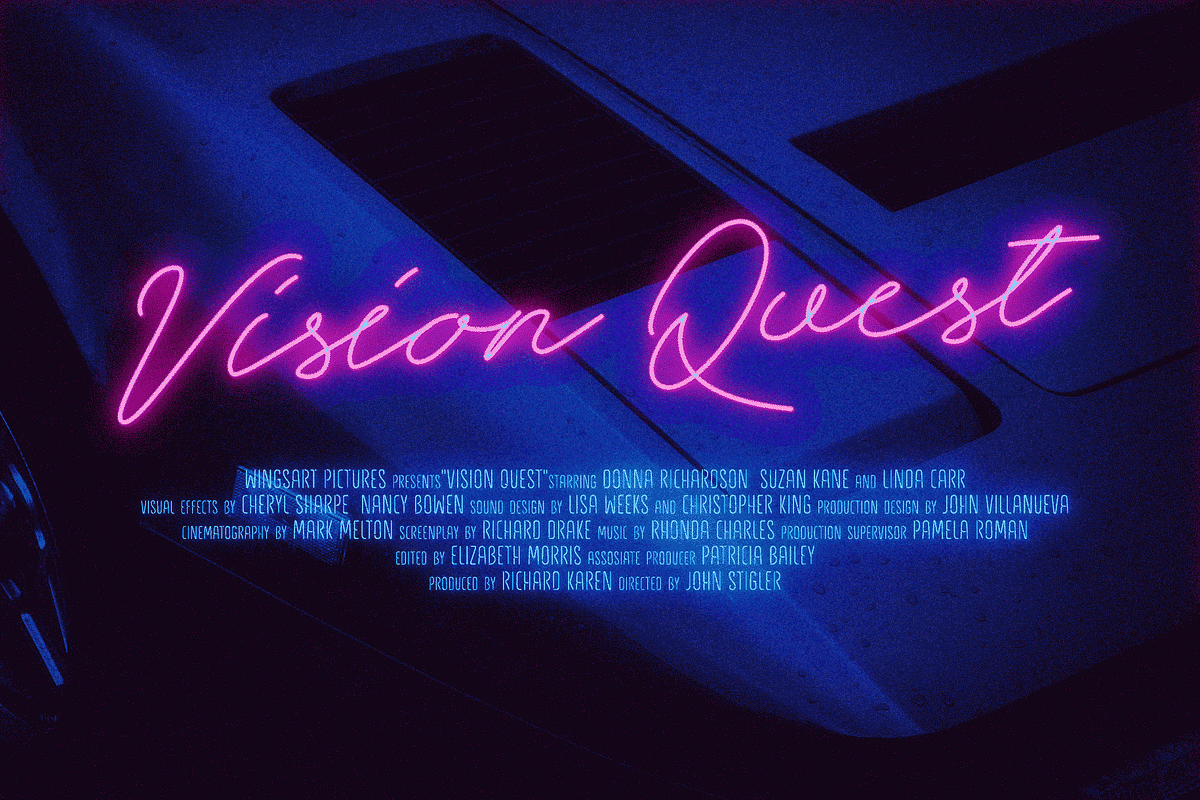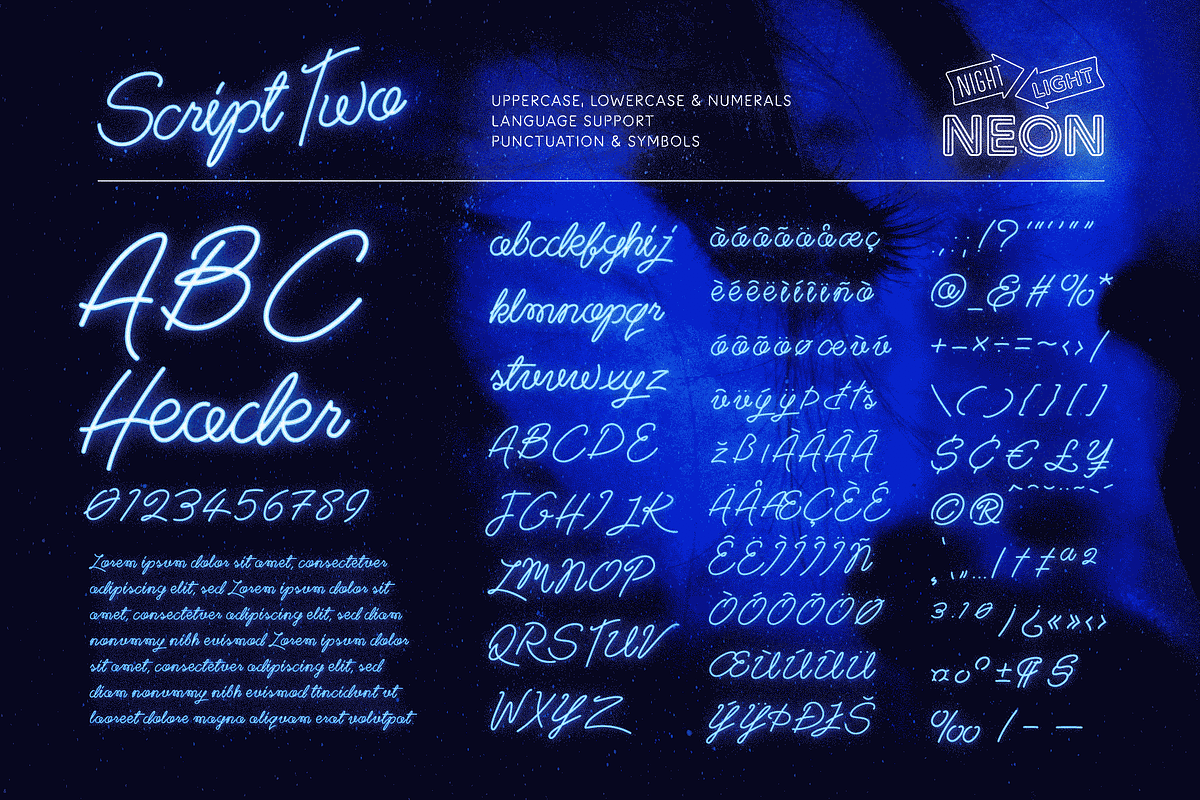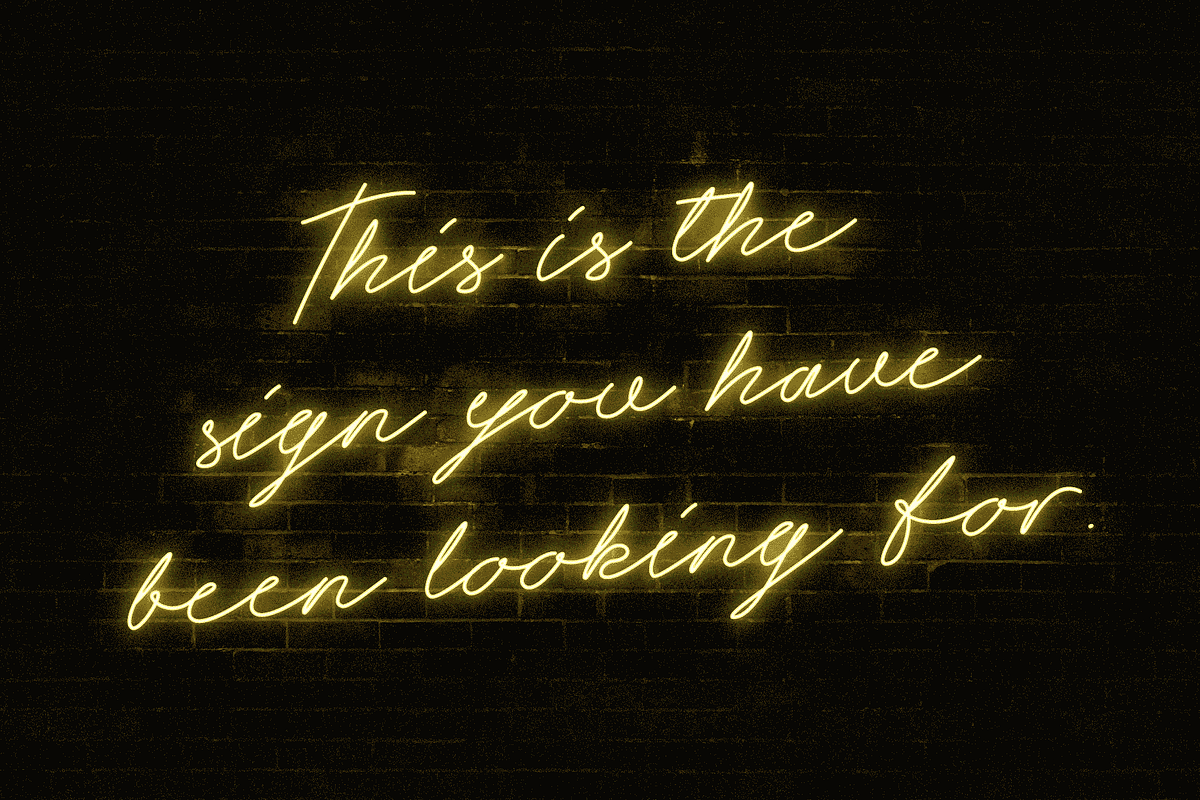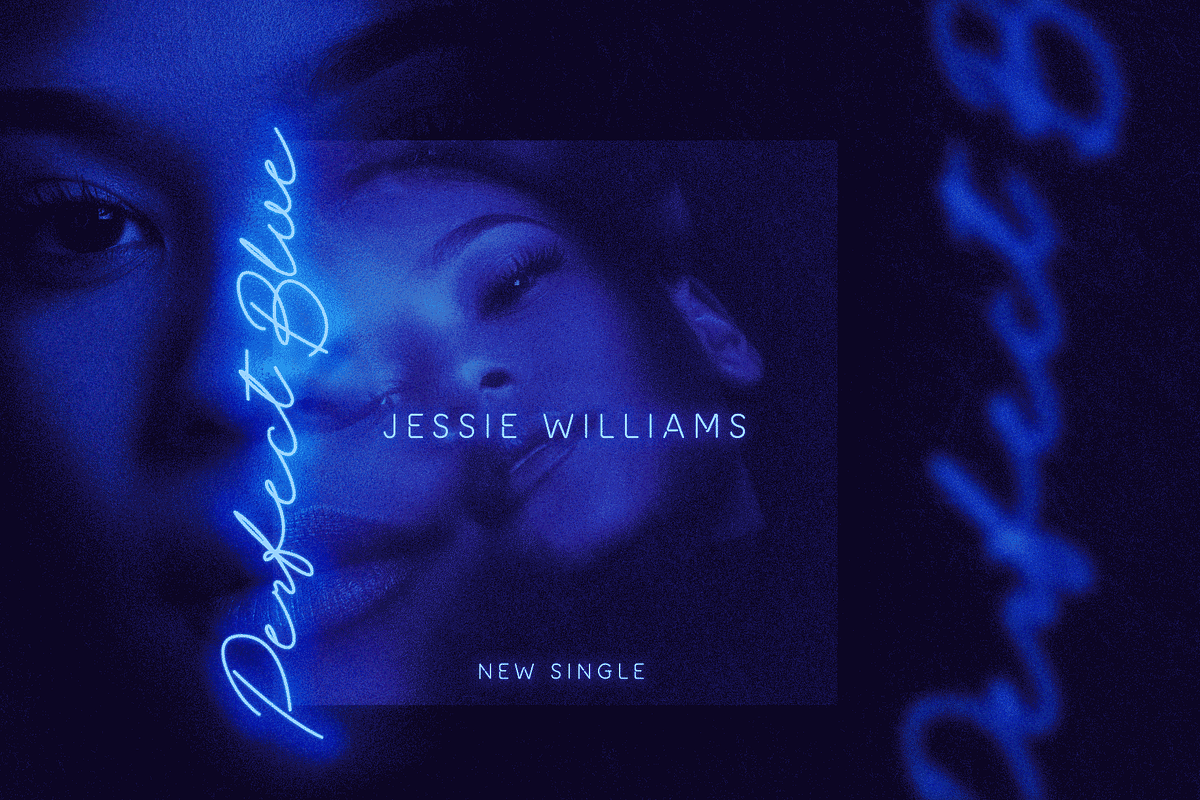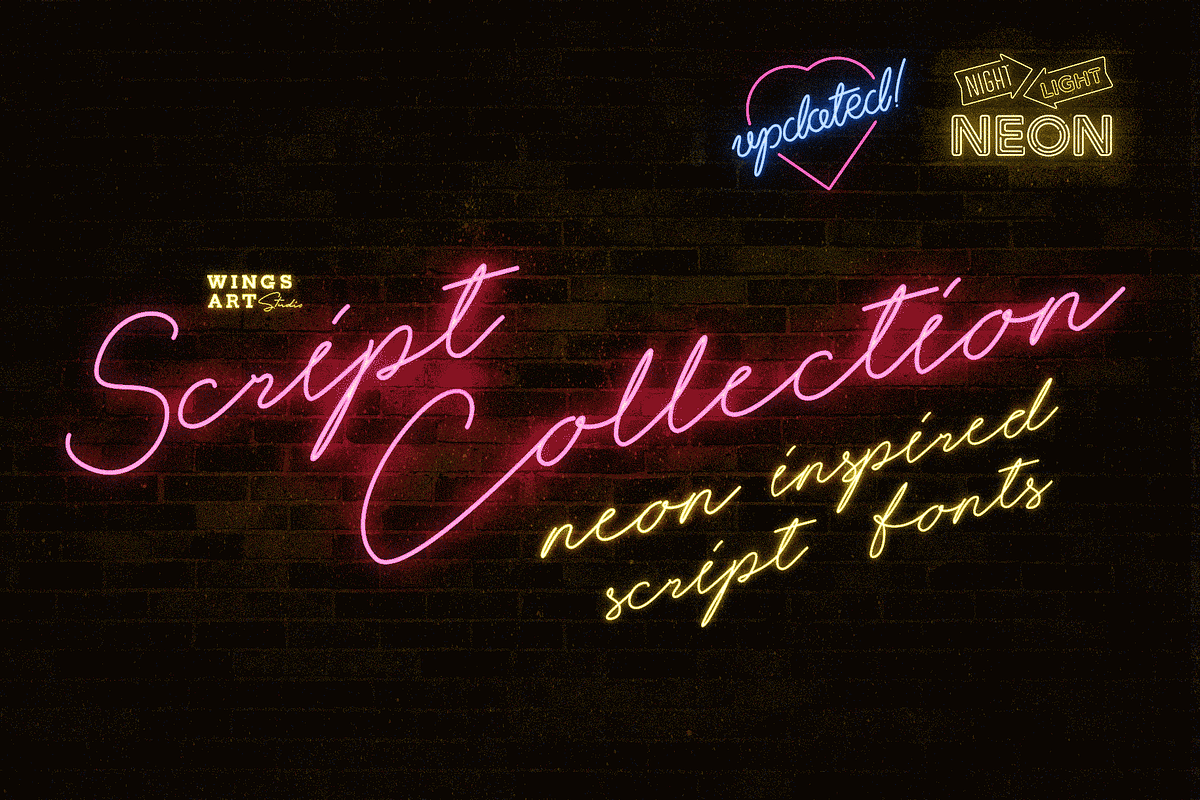
Night Light: The Neon Script Fonts
Night Light: The Neon Script Fonts - New Updated Styles!
Specially created neon inspired fonts giving designers the power to replicate traditionally hand-made lettering from the comfort of their computer.
ACHIEVE AN AUTHENTIC NEON LOOK
These Script style fonts works great as headlines for music promotion, film titles, Youtube tutorials and gig posters, and when combined with our graphic presets can achieve a truly realistic neon look.
- Night Light Script
- Night Light Script Three
- Night Light Script Two